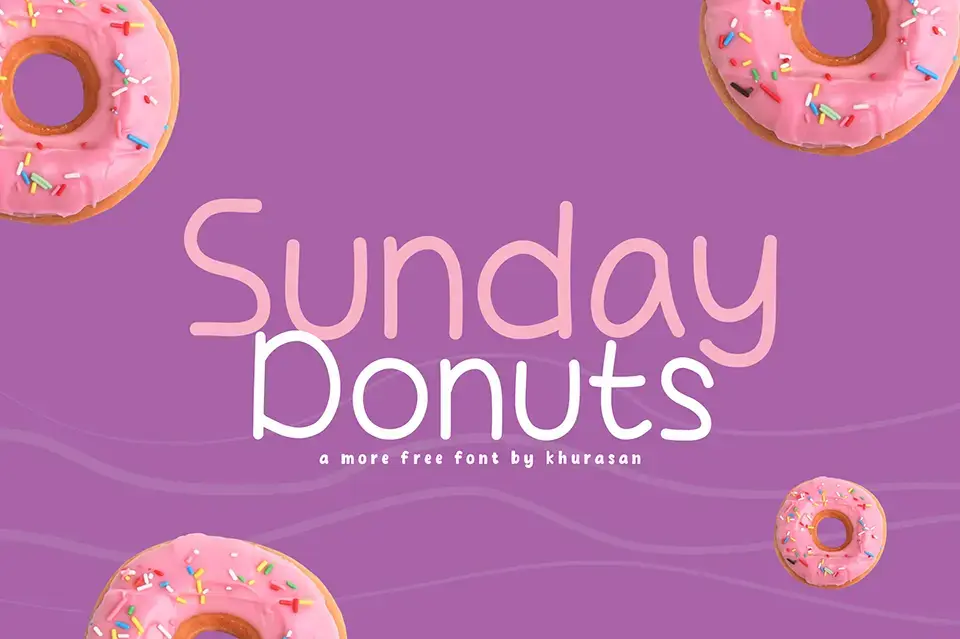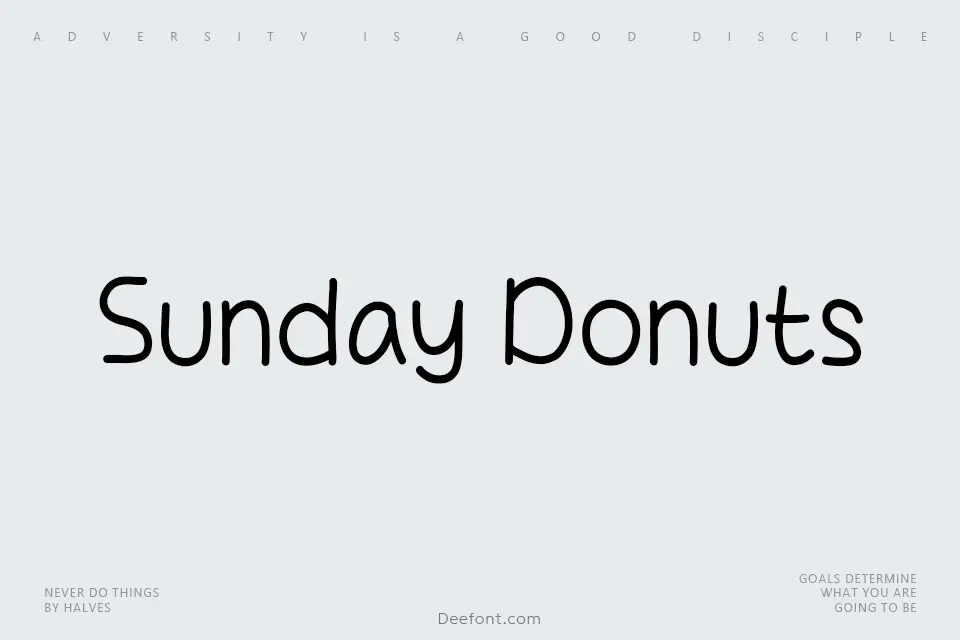
Sunday Donuts Font
Sunday Donuts Font is a charming and playful handwritten script designed by Khurasan. Characterized by its bold, rounded strokes and bouncy baseline, this font exudes a fun, friendly atmosphere. It is 100% free for commercial use, making it ideal for whimsical logos, food packaging, children's book covers, and cheerful greeting cards that require a touch of joy and creativity.